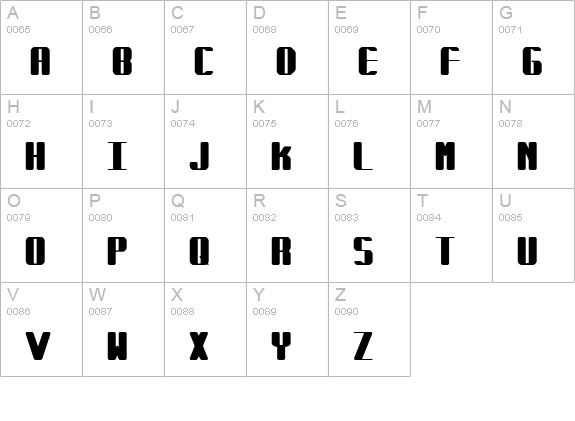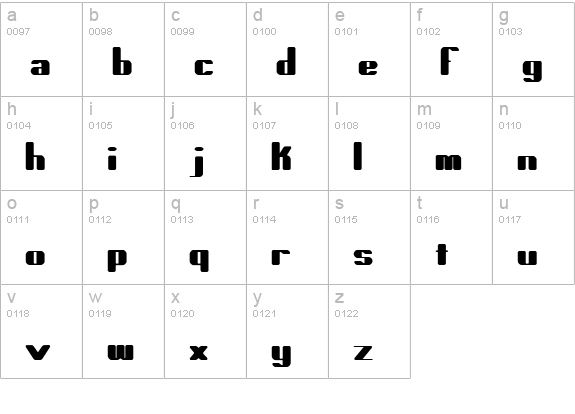
Forcible (BRK) Font Details
Forcible (BRK) font is a bold and commanding typeface that exudes strength and confidence. Its sharp lines and assertive letterforms make a powerful statement in any design project. This font is perfect for headlines, logos, and branding materials that demand attention. The best part? Forcible (BRK) font is available for free download at FontsMarket.com. This means you can add this dynamic font to your collection without any cost. Don't miss out on the opportunity to enhance your designs with this striking typeface. Download Forcible (BRK) font today and make a bold statement with your next project.